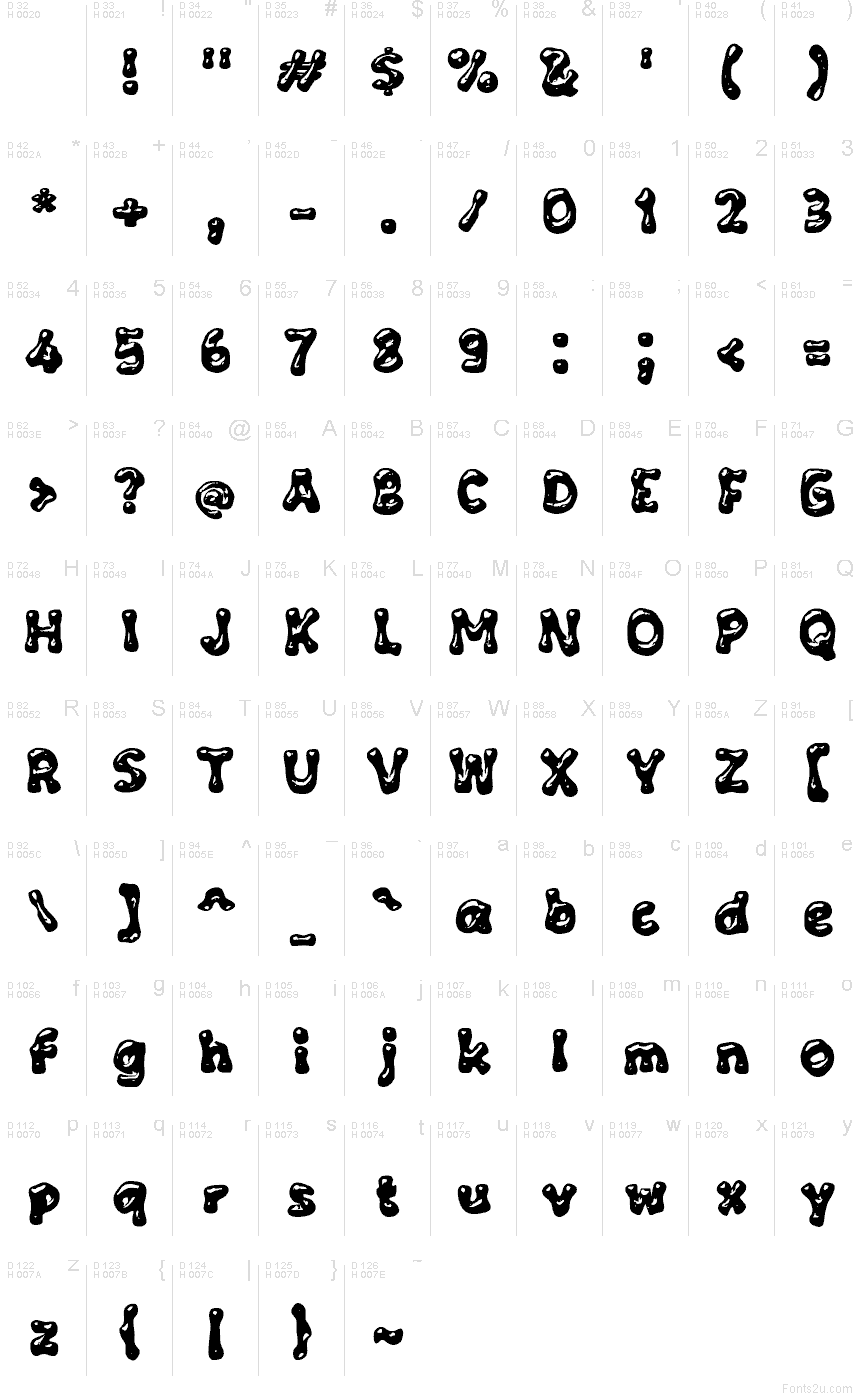
Wabikom
Wabikom font by wepfont.com is a free groovy display typeface that looks like it’s been dipped in glossy ink or molten candy. Each letter swells and drips with soft, rounded blobs and tiny highlights, giving it a wet, squishy feel that jumps off the page. The uneven rhythm and chunky silhouettes make words feel hand-crafted and a little wild, like a poster scribbled for an underground gig or a messy slime party.
Using Wabikom, you can crank up the fun on event posters, party invitations, band or DJ logos, kids’ packaging, Halloween graphics, and bold social media titles. This free font works best big and loud, where its gooey textures and playful curves can really breathe. Pair Wabikom with a clean geometric sans for body text to keep everything readable while the headline does the shouting.